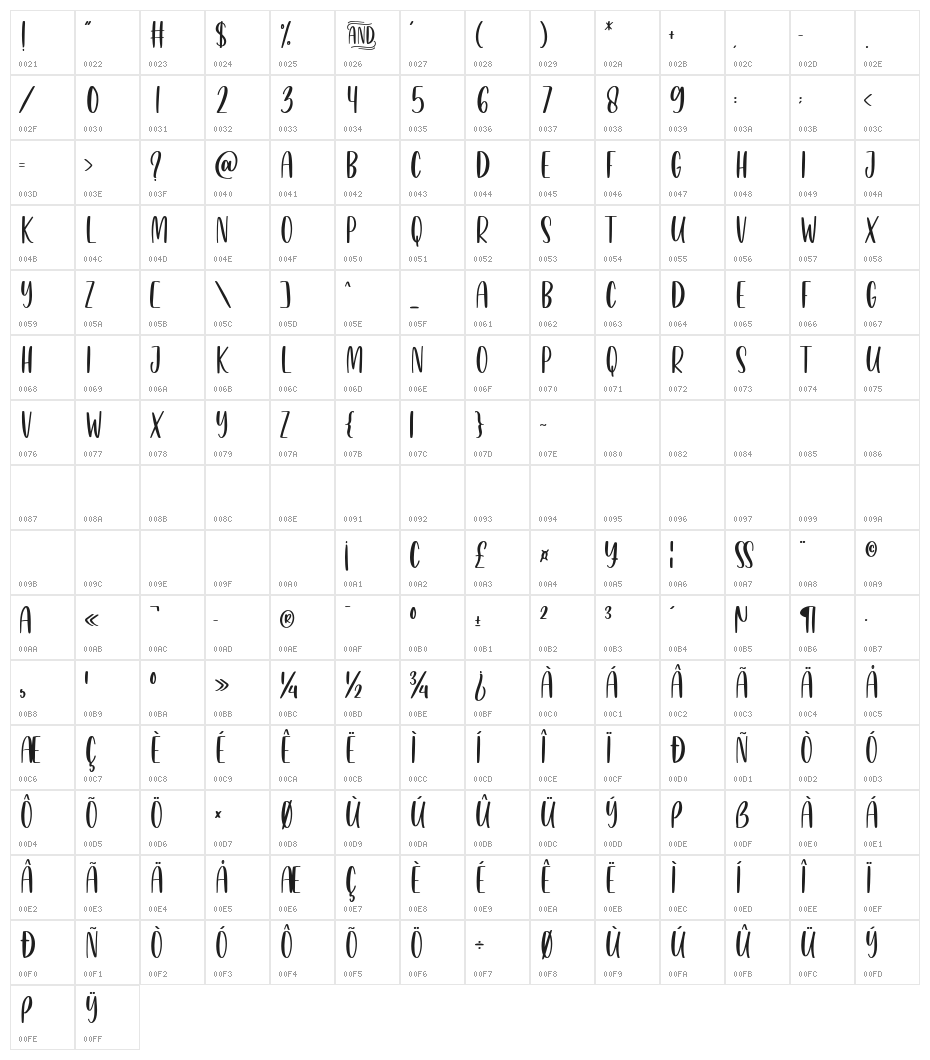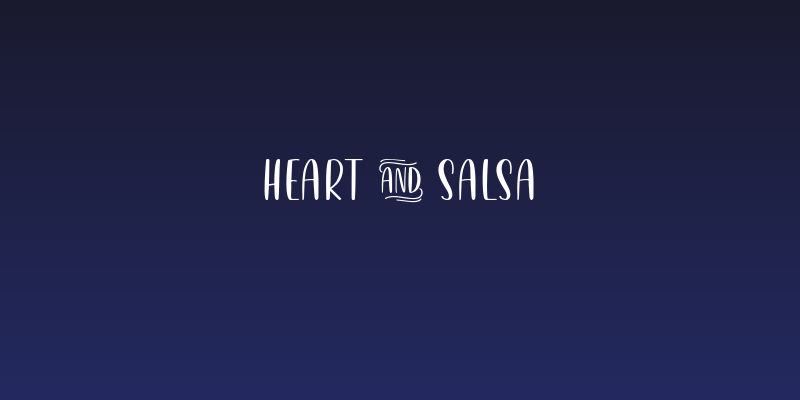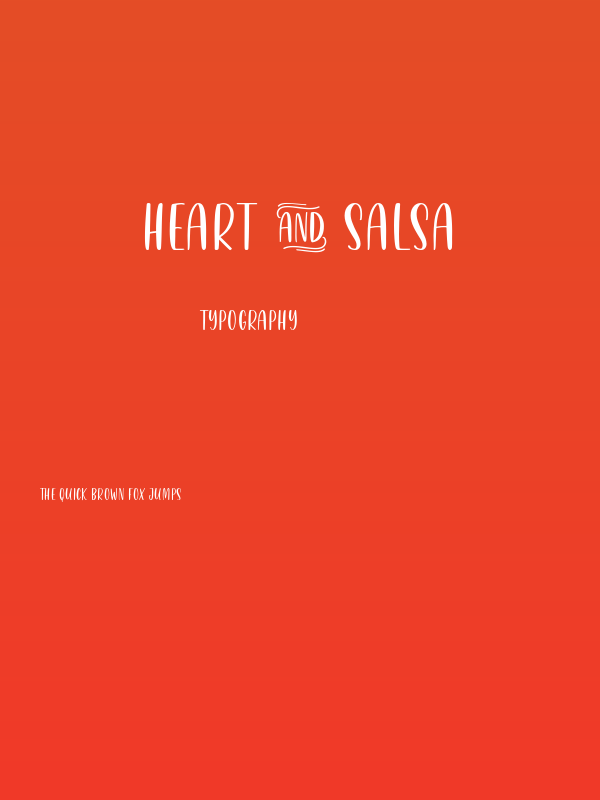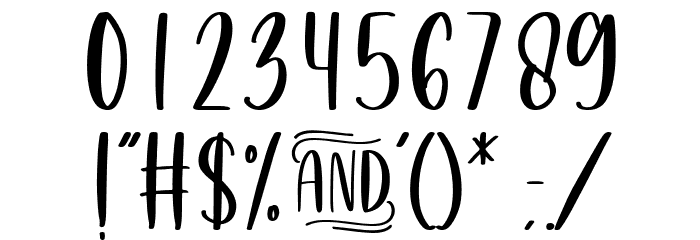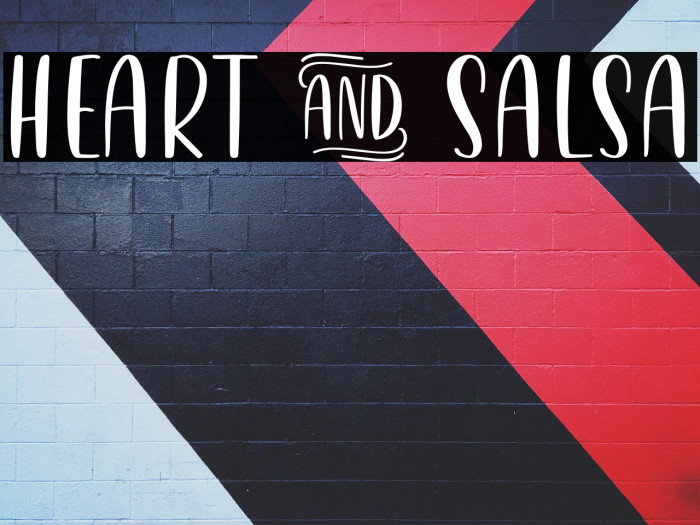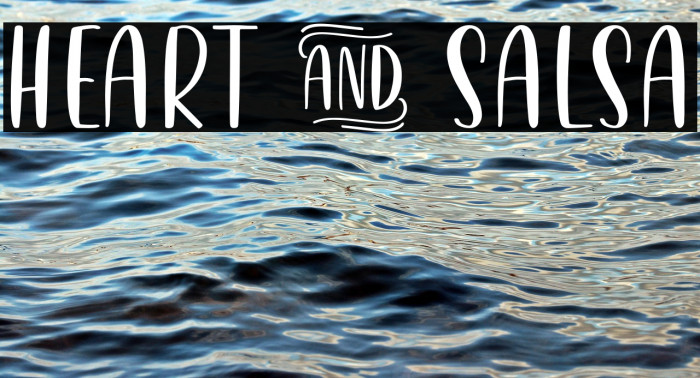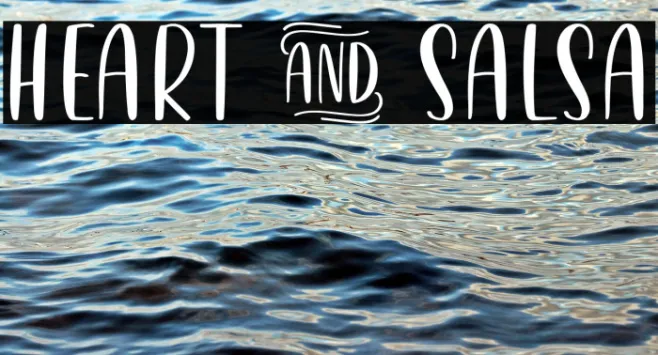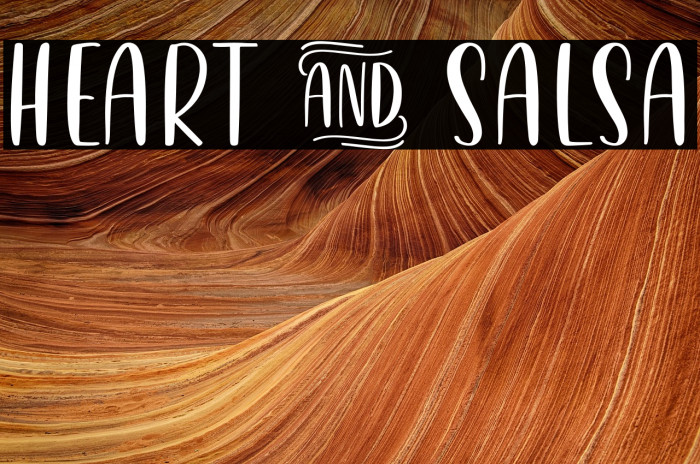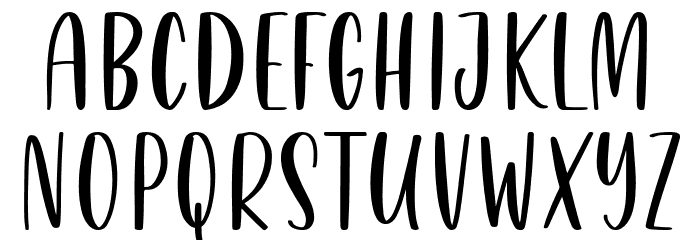
Heart & Salsa Font
Heart & Salsa Description
This font features a playful and lively handwritten style, characterized by its tall, narrow letters with a slight slant. The strokes are smooth and fluid, giving it a casual yet elegant appearance. The uppercase and lowercase letters maintain a consistent style, with rounded edges and a friendly demeanor. Numbers and special characters are designed to match the overall aesthetic, ensuring a cohesive look across all text. The font's unique personality makes it suitable for creative and informal projects, adding a touch of whimsy and charm.
| Proposed Projects | Ideal for greeting cards, invitations, posters, and social media graphics. |